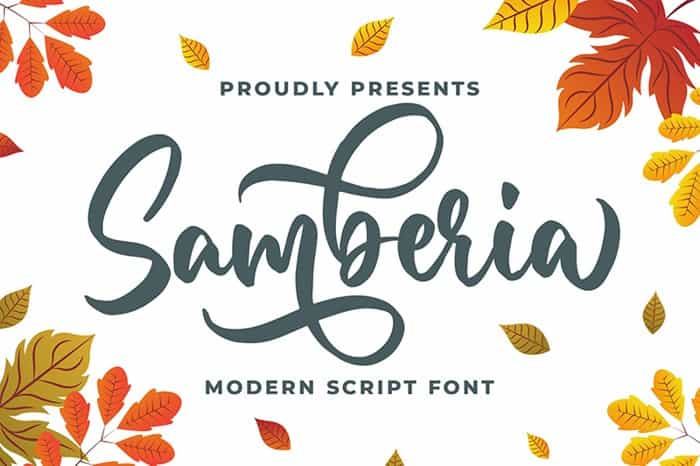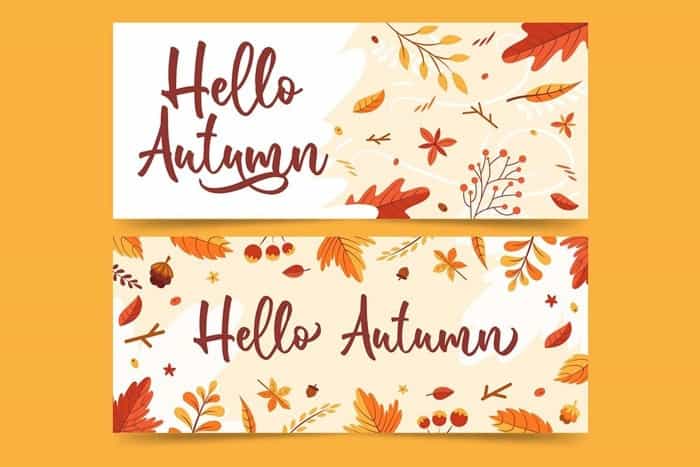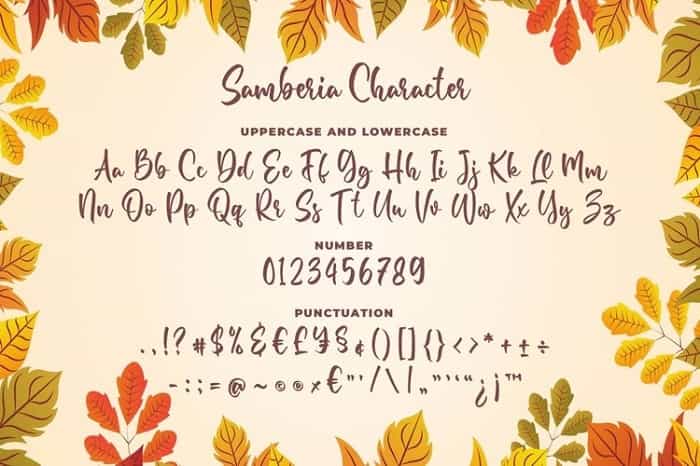
Discover Samberia Calligraphy Script Font, part of the Calligraphy Script collection—a versatile and unique font perfect for adding a personal touch to your projects. Download it for free and enjoy crafting designs with style, from invitations to social media posts. This font is available exclusively for personal use, giving you the freedom to create without limits. Unlock your creativity with Samberia Calligraphy Script Font today!
Samberia typeface inspired from modern calligraphy font is a really fun theme ideal for craf….It is a calligraphy-style script with ornamented characters at the ends as well as a bailable base!!! The script was developed as well as distributed through Blankids Studio .